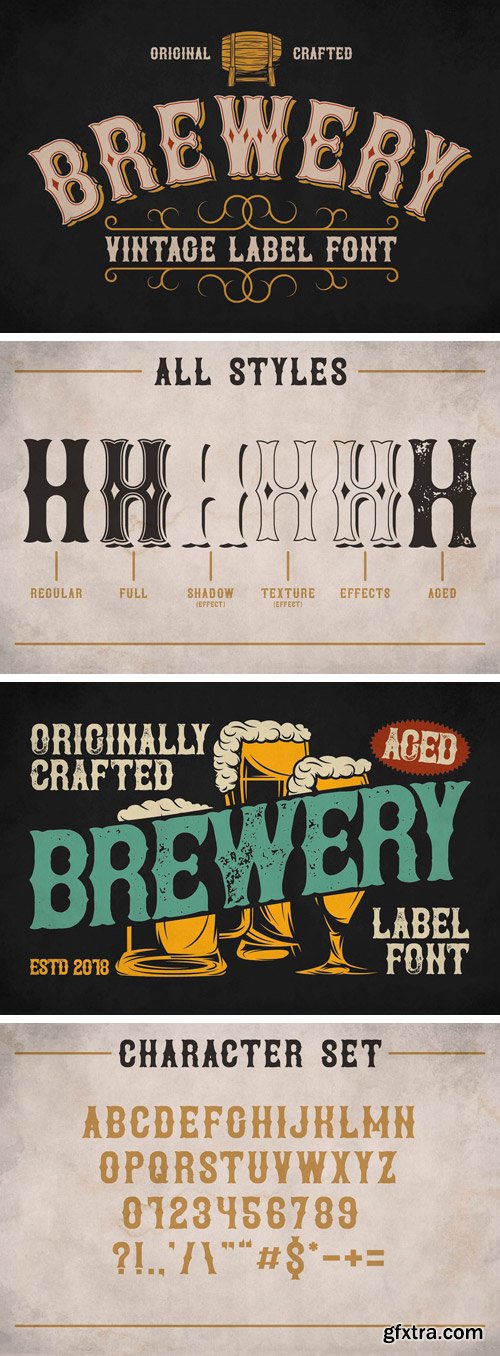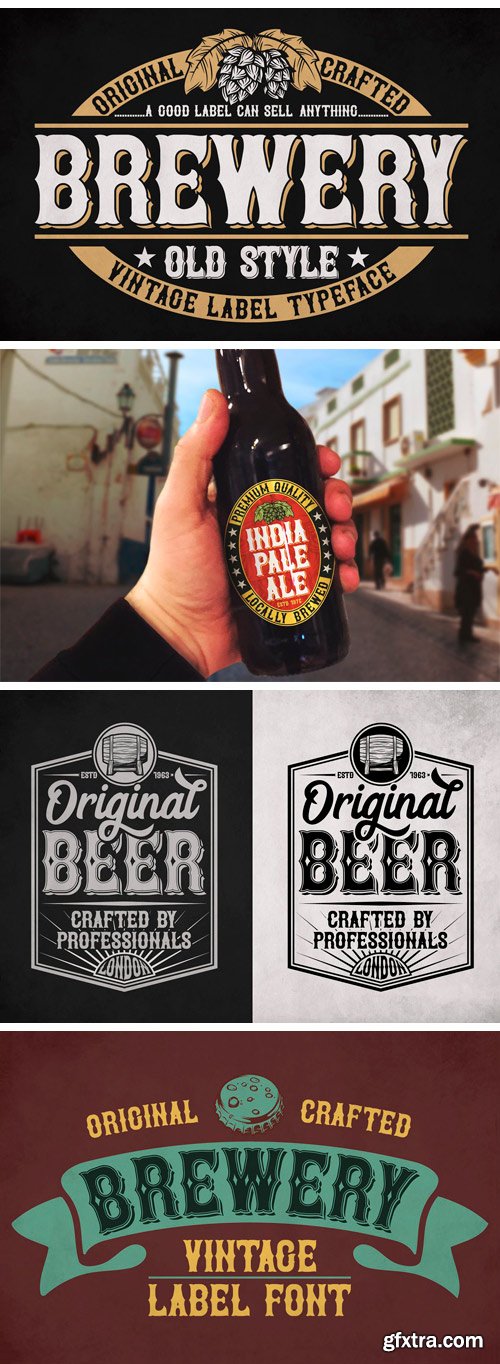
Introducing a vintage look layered label typeface named "Brewery". This typeface includes six styles (including effect styles). This font will good viewed on any retro design like poster, t-shirt, label, logo etc.